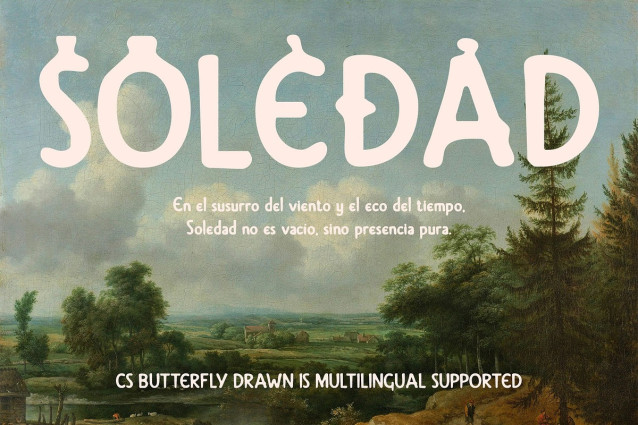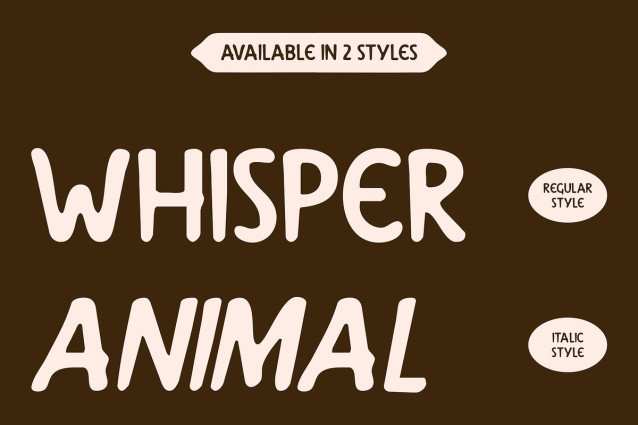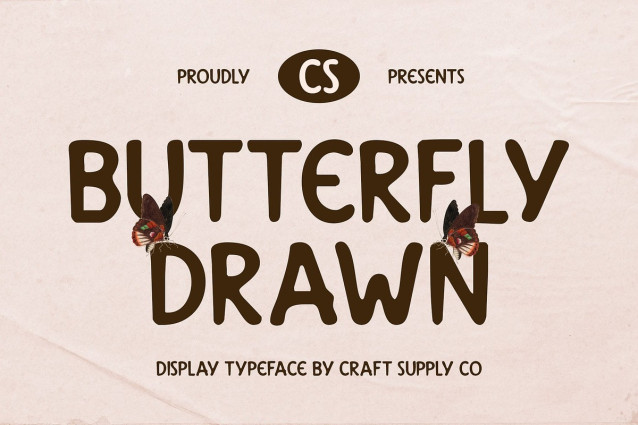
CS Butterfly Drawn Font
CS Butterfly Drawn Font is a modern display font that draws inspiration from classic Greek letterforms. Its refined shapes and historically influenced structure create a timeless presence, perfectly balancing heritage and elegance.
Graceful Proportions with a Hand-Drawn Touch The font’s clean yet artistic lines are enhanced by a subtle hand-drawn effect, lending a personal and organic quality to each character. This drawn texture adds softness and emotion, transforming structured forms into expressive visual elements.
Aesthetic Charm for Cultural and Artistic Designs With its unique blend of classical influence and modern execution, this font—with a romantic and authentic flair—is ideal for editorial designs, cultural publications, and artistic projects. It offers an air of sophistication while remaining visually inviting and rich with personality.
Perfect for Luxury Branding and Wedding Design This refined yet warmly personal font brings a romantic, high-end appeal that shines in wedding invitations, boutique branding, and upscale packaging. Its graceful and thoughtful style communicates beauty, authenticity, and emotional depth.
Classic Meets Contemporary Expression This font bridges past and present—blending timeless Greek structure with a fresh, artistic twist. It’s ideal for designers seeking a typeface that conveys elegance, creativity, and cultural refinement in a modern context.